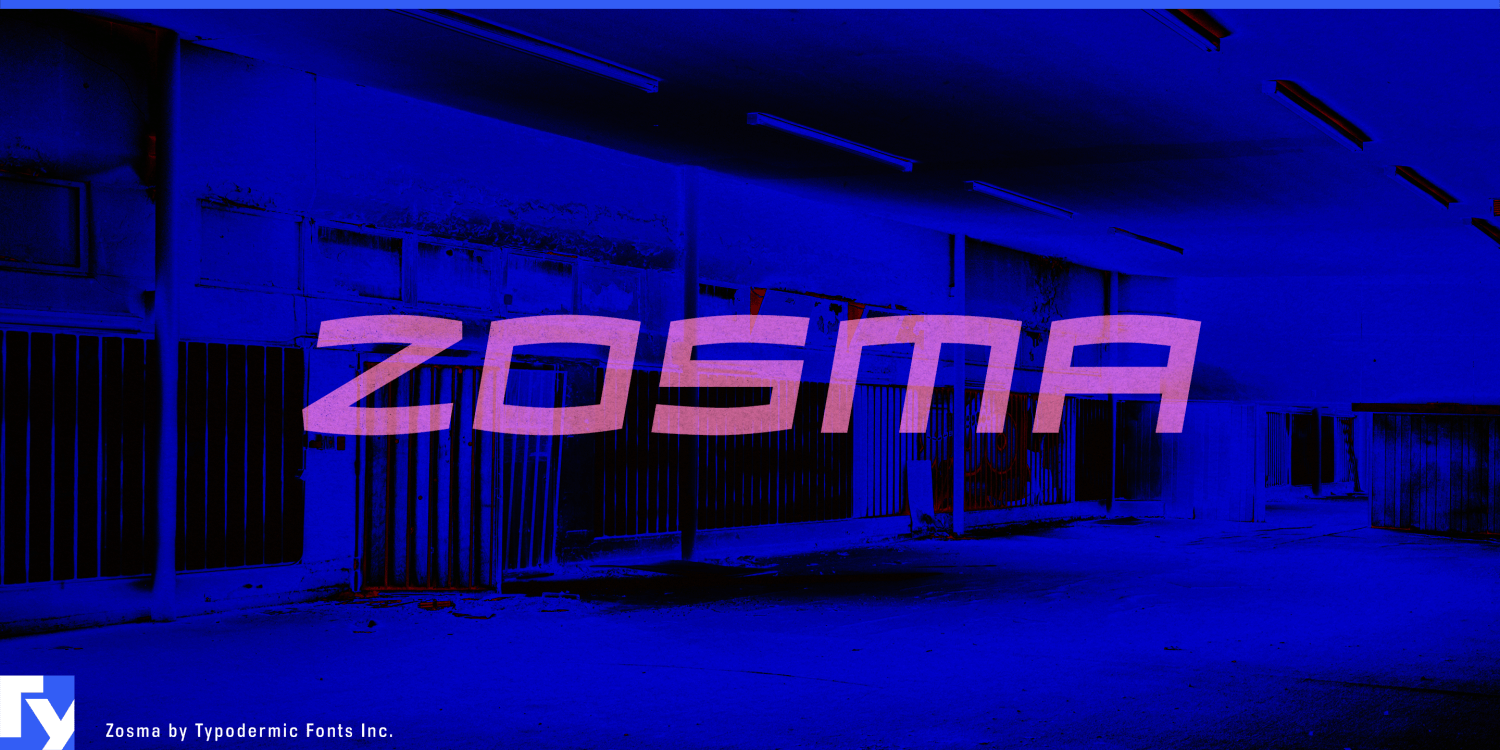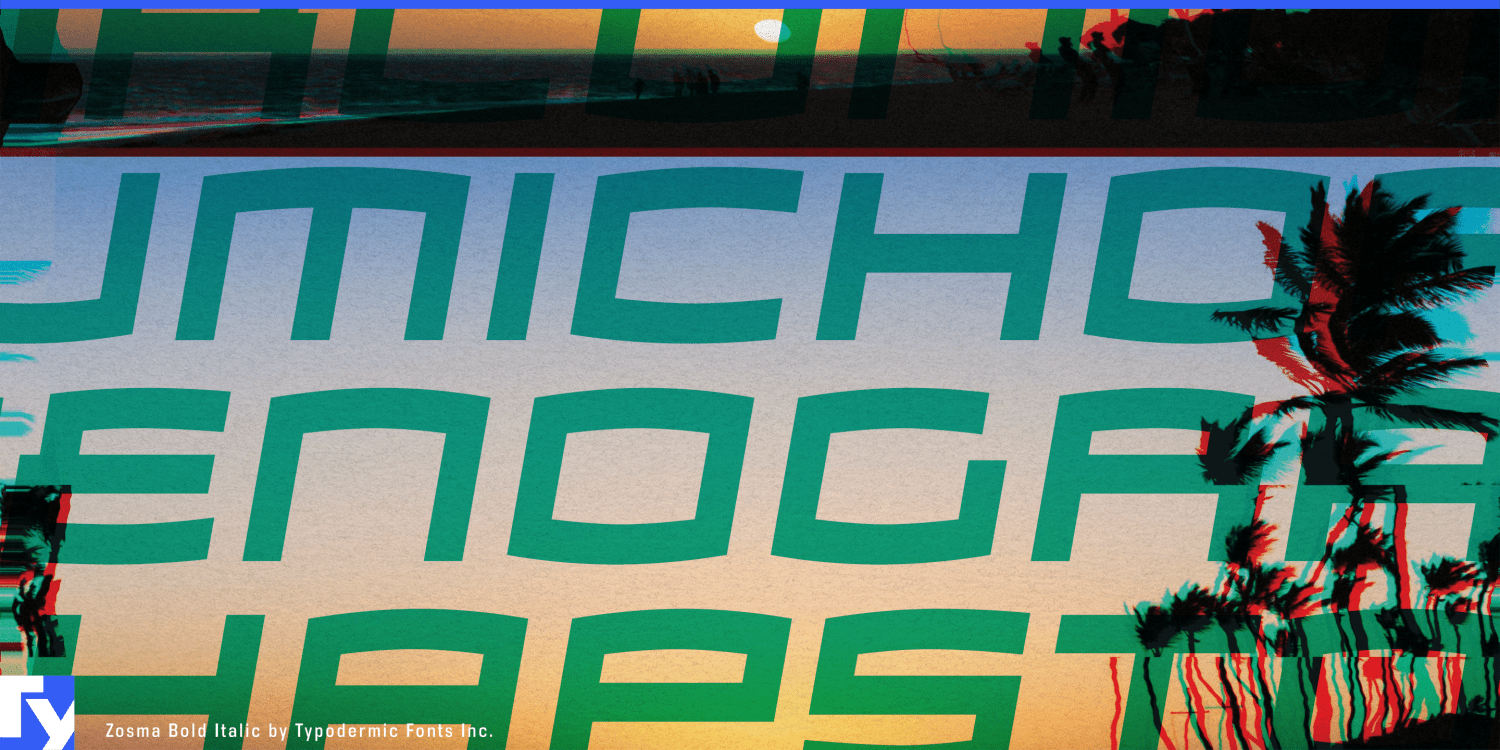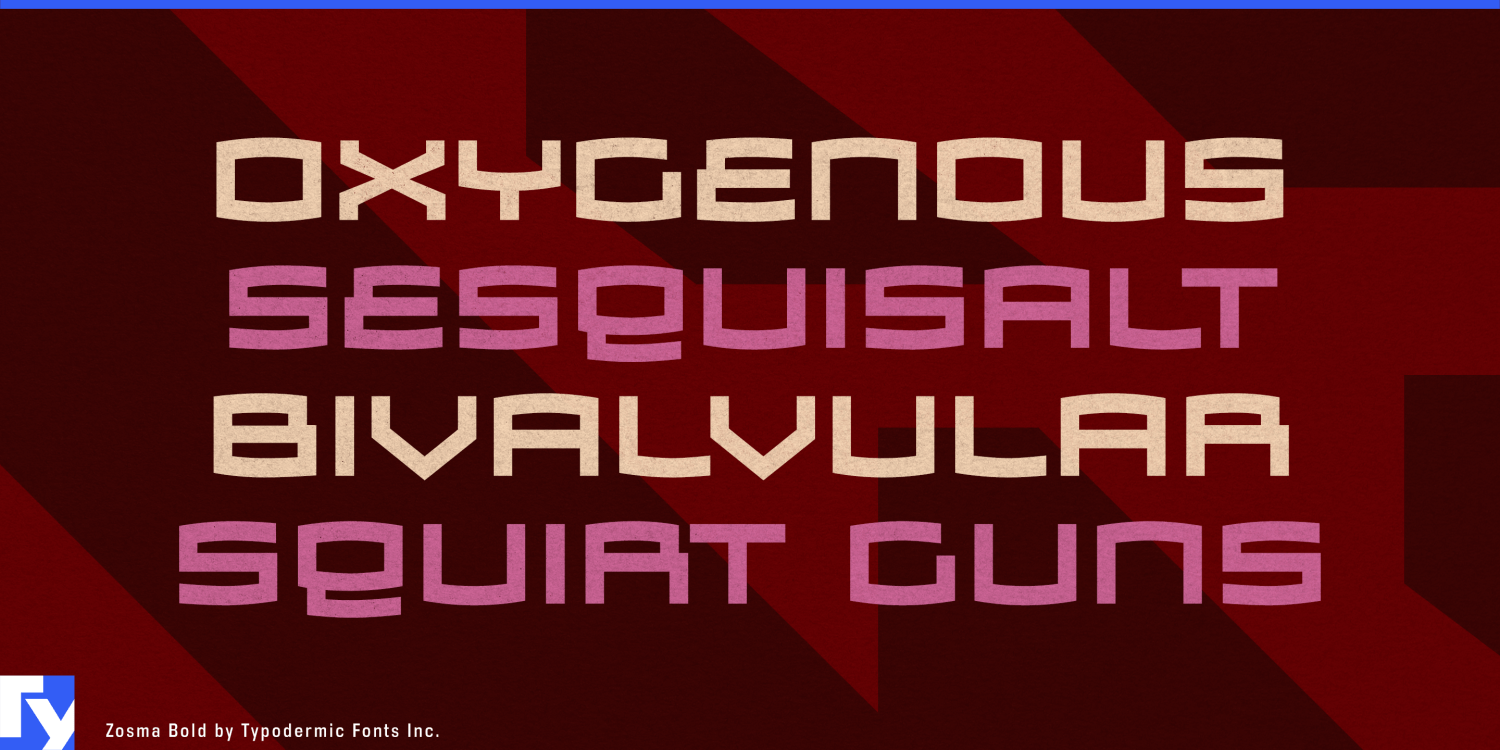
About Zosma
Welcome to the cutting edge of typographic technology. Introducing Zosma, the typeface that’s as sleek and efficient as the latest smartphone and as powerful as a next-gen processor. This is a high-performance communication tool designed to elevate…